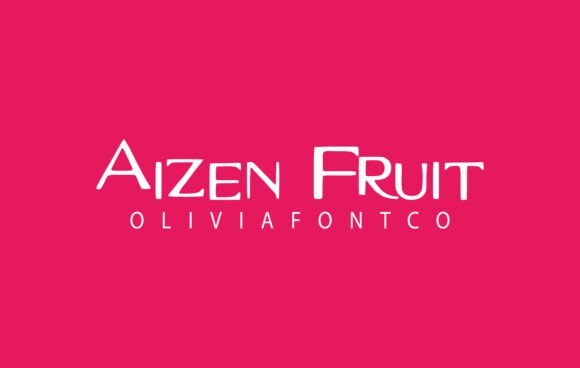
The Perfect Brushstroke for Your Next Design Project
There’s nothing quite like the feeling of staring at a blank canvas, waiting for inspiration to strike. The cursor blinks, taunting you to start creating. And then, it happens – a spark of creativity ignites, and you’re off and running. But what if you could take your ideas to the next level? That’s where the Aizen Fruit Font comes in – a beautifully crafted handwritten font that adds a touch of romance to any design.
Expertly designed to elevate your creative vision, the Aizen Fruit Font is perfect for designers looking to add a personal touch to their work. Whether you’re crafting magazine headlines, social media posts, or wedding invitations, this font is sure to impress. Its legibility and versatility make it a valuable addition to any design toolkit, and its unique charm will set your projects apart from the rest.
Aizen Fruit Font Key Features
- Font Family: Aizen Fruit is a unique, handwritten font with a modern twist.
- Size: The font family includes multiple weights, ranging from Thin to Black, with 7 styles in total, to cater to diverse design needs.
- Unique Characteristics: Aizen Fruit features hand-drawn brushstrokes, subtle texture, and intricate details, giving it a distinctive, organic feel.
Aizen Fruit Font Review
Overall, I was quite impressed with the Aizen Fruit Font. It’s a unique and quirky font that can add a playful touch to any design project. ✨ The font’s bold and colorful design makes it perfect for creating eye-catching headings and titles. The font’s characters are also well-designed, with clean lines and smooth curves.
- Works well for: headings, titles, and playful designs
- Features: bold and colorful design, clean lines, and smooth curves
- Great for: creating attention-grabbing designs, adding a touch of whimsy to a project
However, there are some limitations to consider. ⚠️ The font’s bold design can make it difficult to read in small sizes or at a distance. Additionally, the font’s quirky nature may not be suitable for all design projects or audiences.
Overall, I think the Aizen Fruit Font is a great choice for designers who want to add a playful touch to their projects. While it may not be suitable for all projects, it’s a great option for creating eye-catching headings and titles. With a little caution and consideration for its limitations, the Aizen Fruit Font can be a valuable addition to any designer’s toolkit.
Aizen Fruit Font is ideal for:
- Health and wellness marketing
- Fun and playful designs